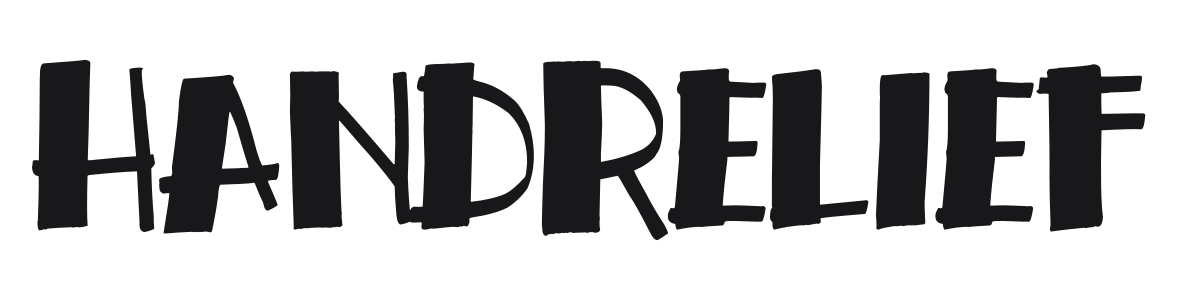
Handrelief
Handrelief is a bold, hand-carved display font with the rough texture of woodblock printing or linocut craft. Each character has irregular edges and uneven strokes that make every line feel physically pressed onto the page. It works well anywhere you want something that feels genuinely handmade rather than digitally polished.